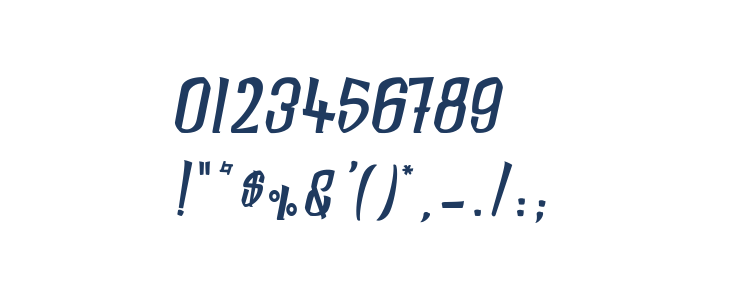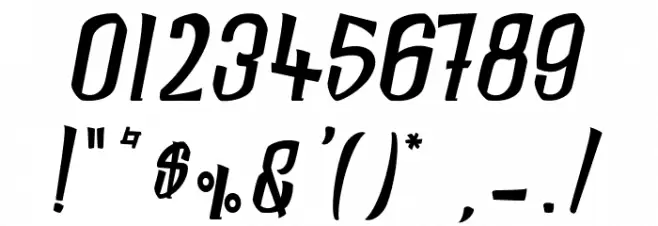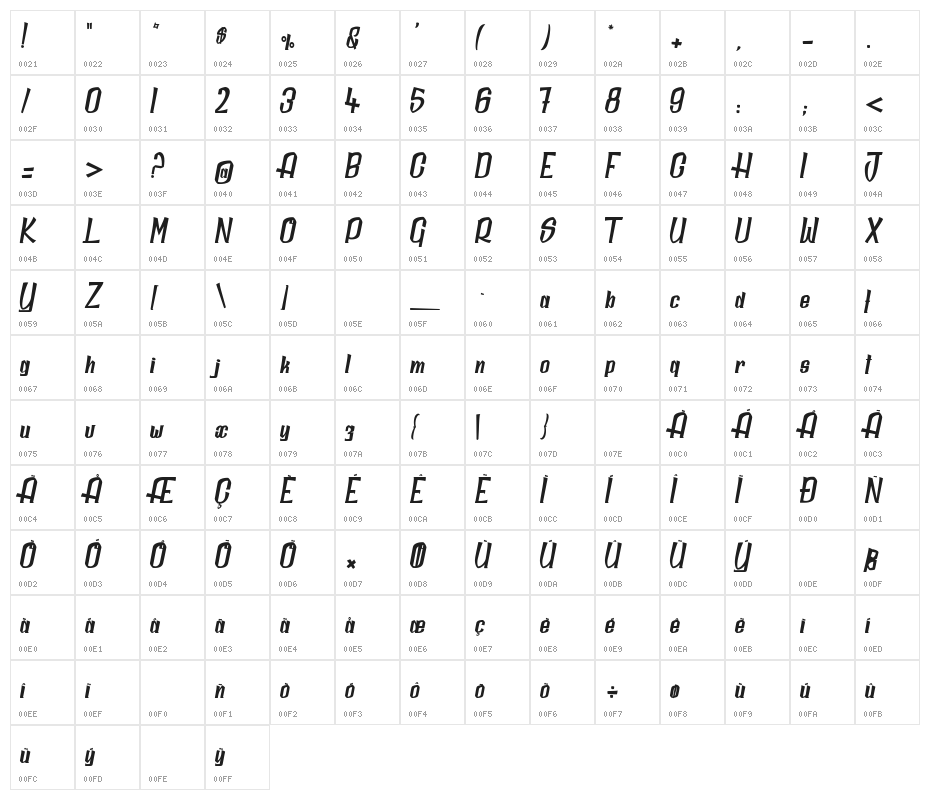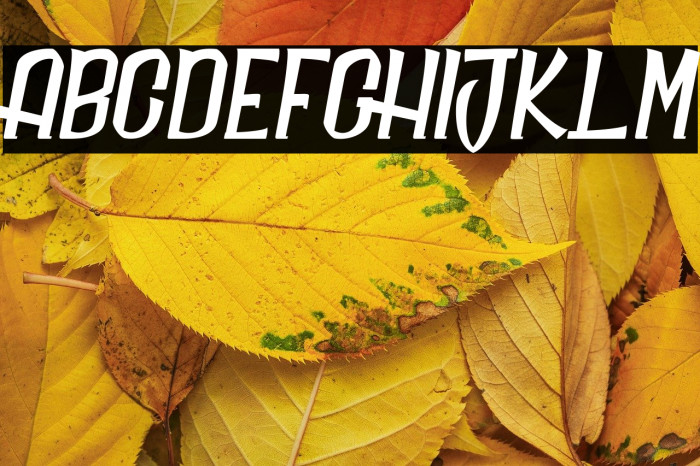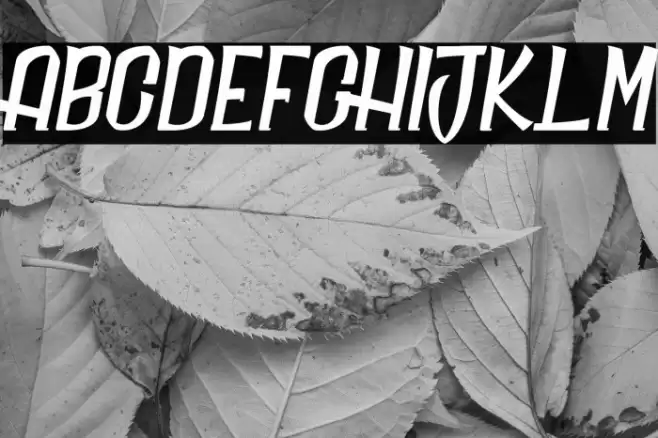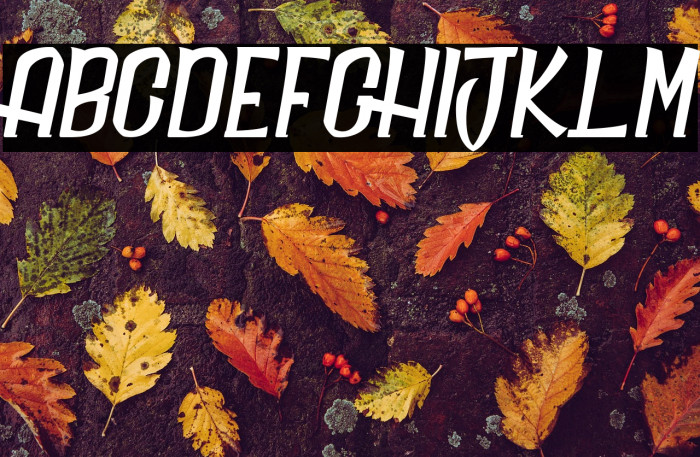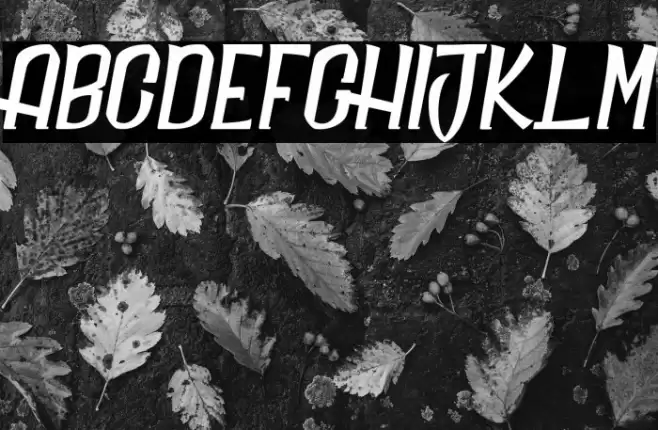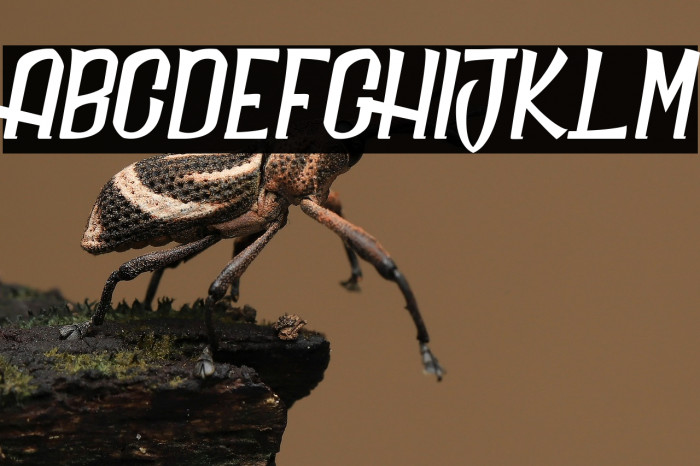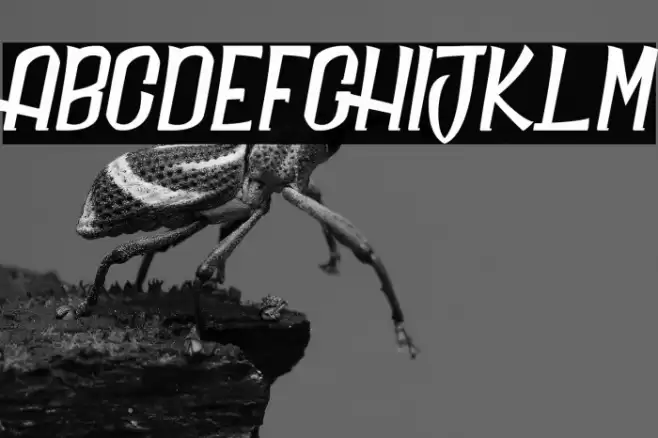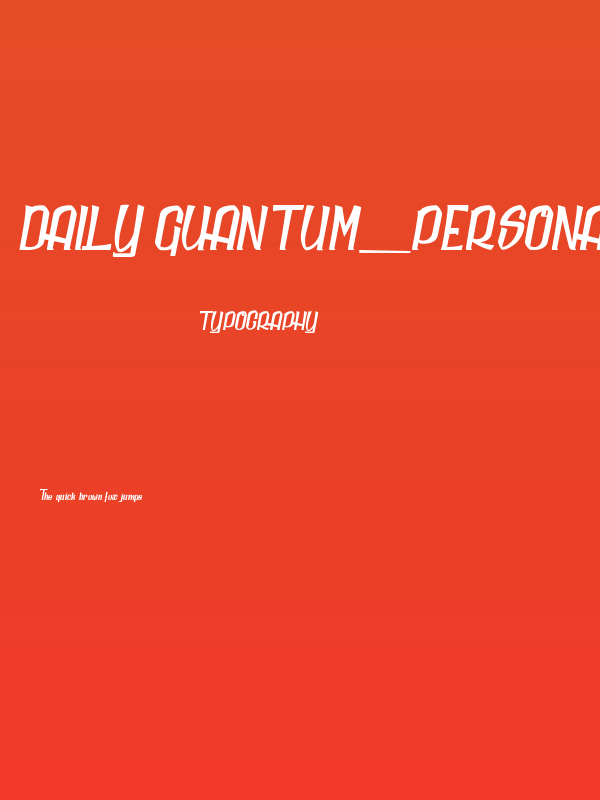
Daily Quantum_PersonalUseOnly Font
Daily Quantum_PersonalUseOnly Description
This font features a dynamic and energetic style with a slight slant, giving it a sense of motion and flair. The uppercase letters are bold and angular, with sharp edges and a distinct geometric influence. The lowercase characters maintain this angularity but with a more compact form, creating a cohesive look across the alphabet. Numbers are similarly styled, ensuring consistency throughout. The special characters complement the overall design with a unique twist, adding to the font's playful yet assertive personality. This font is ideal for projects that require a bold statement and a modern, edgy aesthetic.